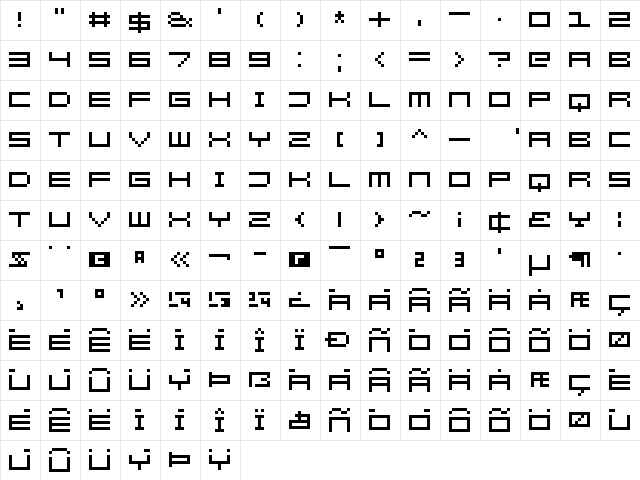
Kenney Rocket Square Regular
| Designer | Kenney |
Design Context for Kenney Rocket Square Typeface
Kenney Rocket Square offers clean, dependable letterforms without strong stylistic allegiance, making it a practical choice for designers who need flexibility.